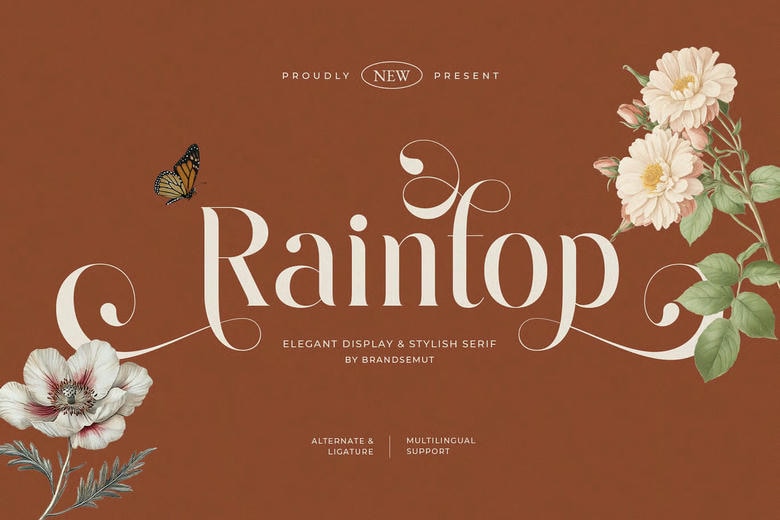
Raintop Font
Raintop is a display serif font which was made with a stylish and luxurious touch. Graceful letterforms, artistic alternates, and creative ligatures all add a touch of sophistication and vintage elegance to any design. Having the same design style as olden aesthetics, but with some modern twists, Raintop is the right choice of designers who desire the appearance of high-class and sophistication.
The typeface is also flexible and is equally effective when used in print or digital platforms–it can also be used for branding, logo designs, editorial design, packages and wedding invites. Multilingual and custom stylish alternates allow you to be flexible and exercise creativity in your design with elegance.
Raintop Elegant & Stylish Serif Font